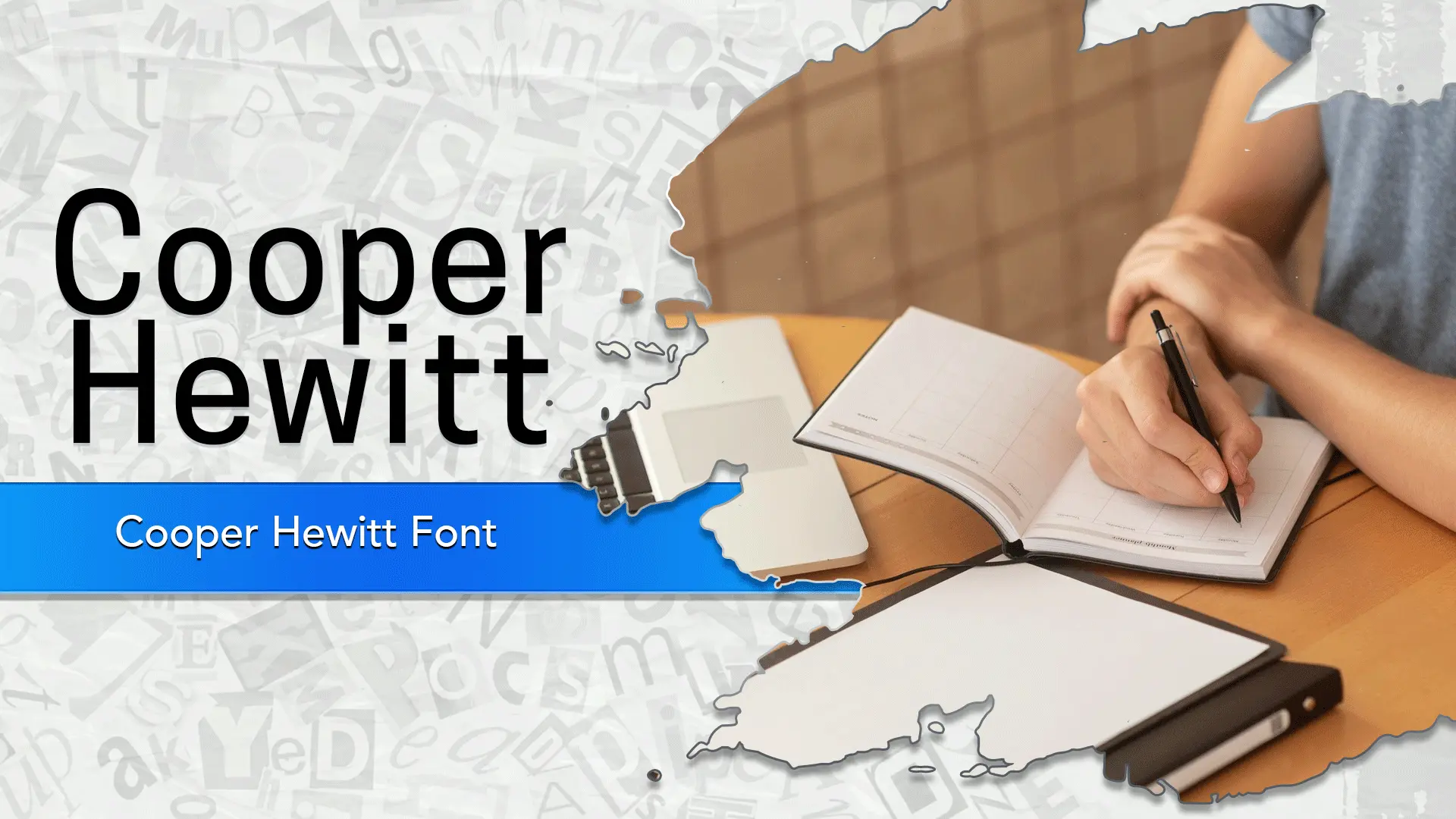
Cooper Hewitt Font
The Cooper Hewitt font family may be ideal for you if you enjoy working on an artistic design project. The lively, expressive look of this typeface, which was created by Chester Jenkins, makes it ideal for The "Book" weight is perfectly optimized for readability in books, magazines, reports, articles, and long-form web content, Ideal for menu items, button labels, and instructional text, Also Can be used in logos where clarity and understated elegance are desired, ts readability makes it superb for textbooks, academic papers, online courses, and instructional manuals, and other light-hearted visual projects.
Bold, Bold Italic, Book, Book Italic, Heavy, Heavy Italic, Light, Light Italic, Medium, Medium Italic, Semi Bold, Semi Bold Italic, Thin, Thin Italic are the fourteen primary font styles of the Cooper Hewitt font family. You may build dynamic, visually appealing text layouts with the distinct flair that each style offers. With crisp, readable lines and a relaxed tone.
Cooper Hewitt adoption by the Smithsonian Design Museum highlights its suitability for clear, public-facing information that needs to be accessible and trustworthy.